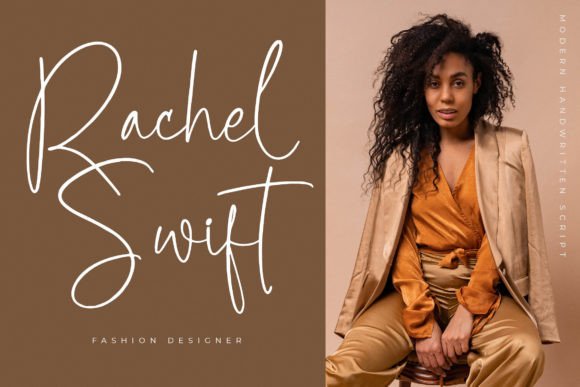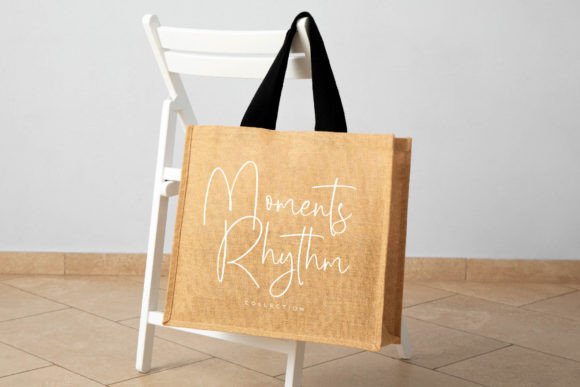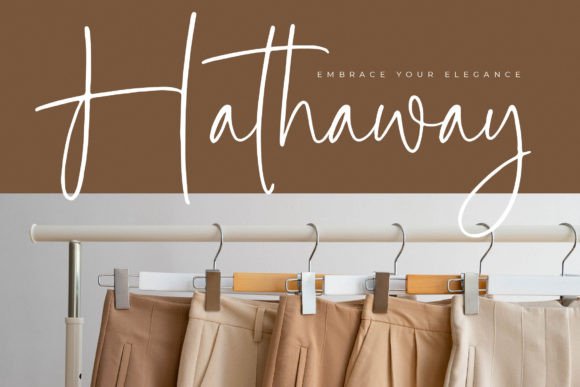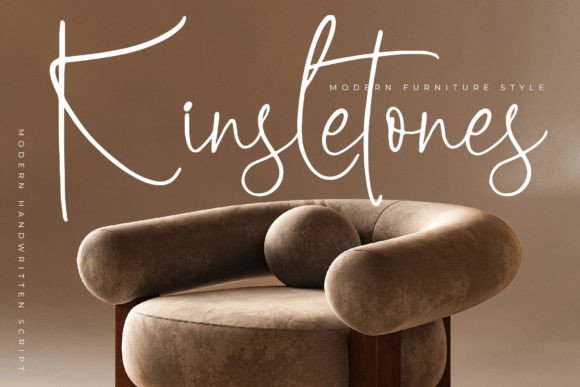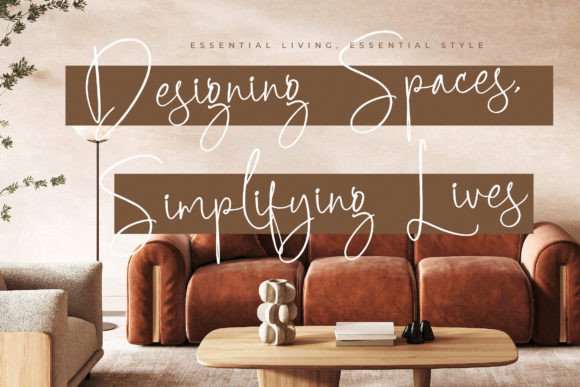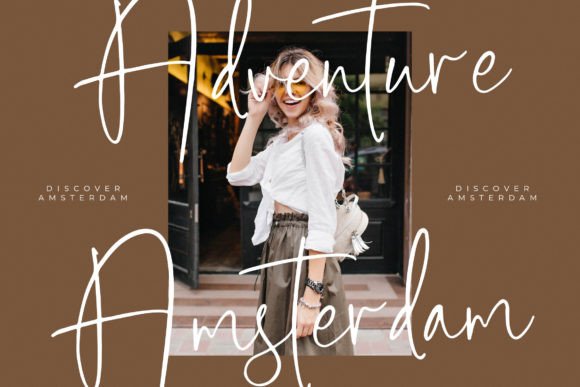
The Joy of Handwritten Touch: Aestheny Sekrathan Font
There’s something special about adding a personal touch to a handmade gift or card. It’s the moment when you decide to break free from the standard fonts and let your creativity shine through. Perhaps it’s a heartfelt letter, a customized tag, or a one-of-a-kind design – the possibilities are endless, and it’s all about the beauty of imperfection.
Enter the Aestheny Sekrathan Font, a modern handwritten typeface designed to bring that personal touch to your designs. With its unique charm and character, this font is perfect for adding a handmade feel to your projects. For designers, the Aestheny Sekrathan Font offers a valuable resource for creating distinctive and eye-catching designs that set them apart from the crowd.
- Font Family: Aestheny Sekrathan
- Unique Characteristics: The Aestheny Sekrathan font features a unique blend of modern and traditional design elements, with a focus on elegant lines, subtle flourishes, and a sophisticated aesthetic.
Aestheny Sekrathan Font Review
I recently had the chance to work with the Aestheny Sekrathan Font, and I have to say it’s been a mixed bag for me. Here are my honest thoughts on what works and what doesn’t.
- Unique and bold design – The Aestheny Sekrathan Font has a distinctive style that’s perfect for making a statement.
- Good legibility – Despite its boldness, the font is still easy to read, even at smaller sizes.
- High-quality rendering – The font renders well on a variety of devices and platforms, with minimal issues.
- Limited font family – The Aestheny Sekrathan Font is a single font, which can make it less versatile than other fonts with multiple weights and styles.
- No italic or oblique – If you need to create emphasis or add a touch of elegance to your text, the Aestheny Sekrathan Font falls short.
- No support for non-Latin scripts – The font only supports the Latin script, which can be a limitation if you need to work with other languages.
Overall, the Aestheny Sekrathan Font is a solid choice for projects where you need a bold, eye-catching font. However, its limitations may make it less suitable for more complex or nuanced designs.
Getting the Most Out of Aestheny Sekrathan Font
To get the most out of the Aestheny Sekrathan font, experiment with different font sizes, colors, and styles. Combine it with other fonts for a unique look. Use it for headings and titles to create visual hierarchy.
The Aestheny Sekrathan font is ideal for creative projects, such as infographics, posters, and social media graphics. It is also suitable for headings and titles in documents and presentations.